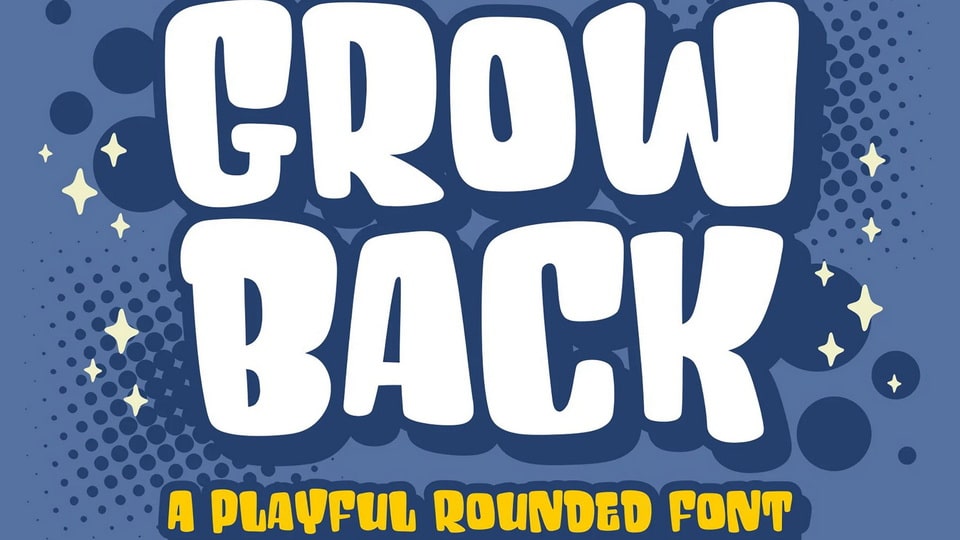
Download Grow Back font, which is made with unique and interesting characters, has a random anatomy of small and thick lines so that this font looks fun, not to forget its smooth, firm and slightly rounded shape.